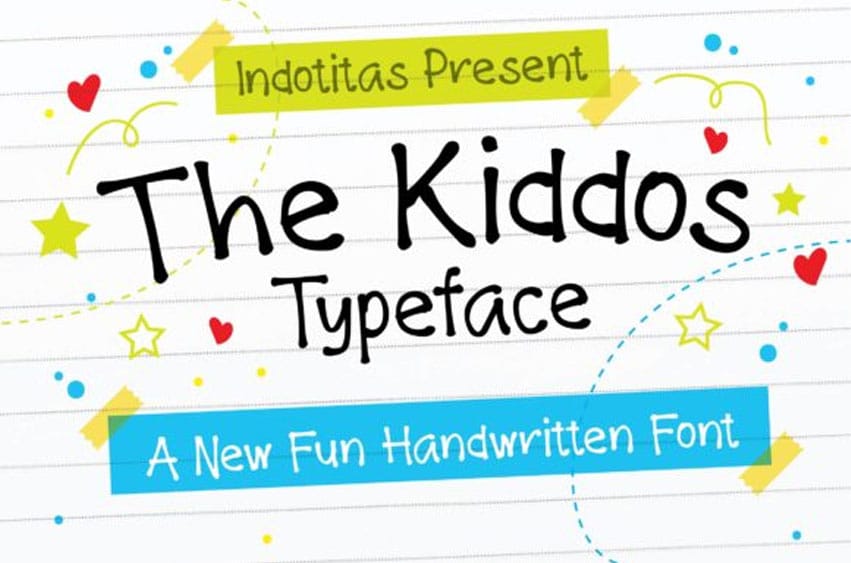
The Kiddos Font
The Kiddos Font is a fun sans serif. It’s perfect for adding a fun and childish atmosphere to your designs.
It has a clean and simple theme and is perfect for cartoon themes, comic, children’s books, funny greeting cards, food package designs, simple logotype or abstract images and many more.